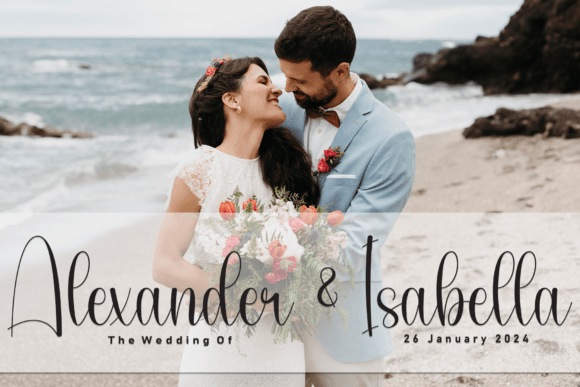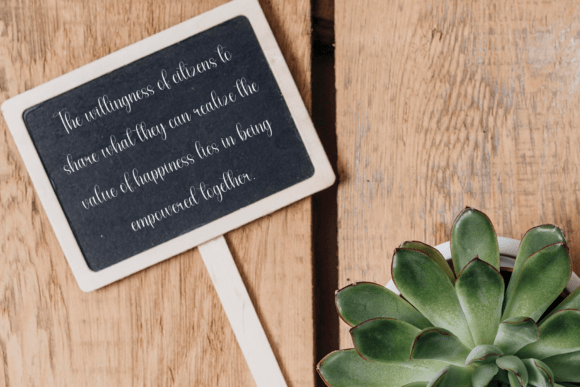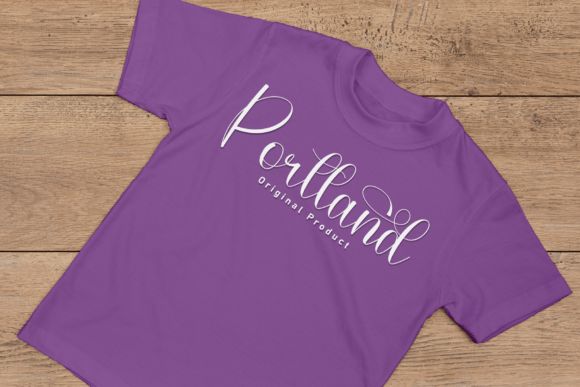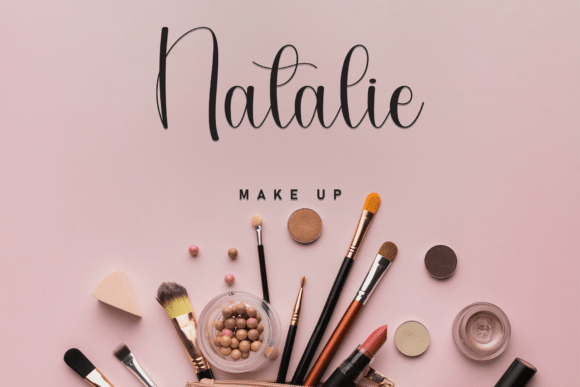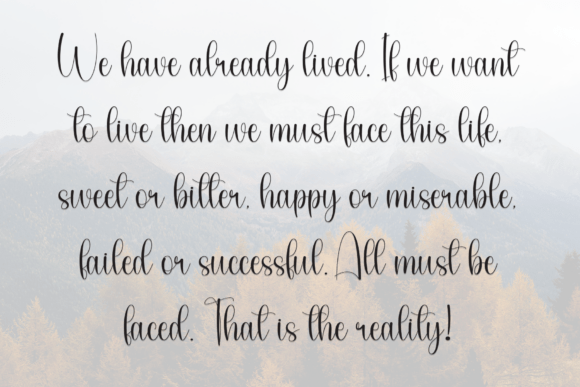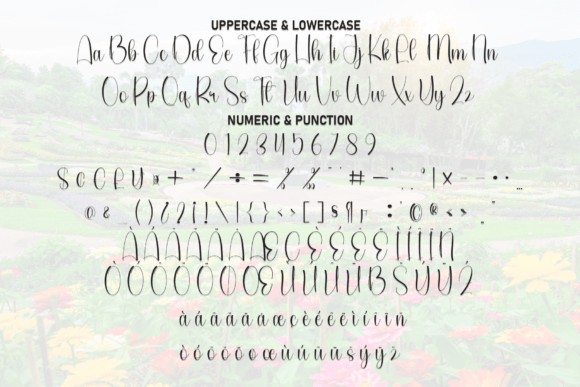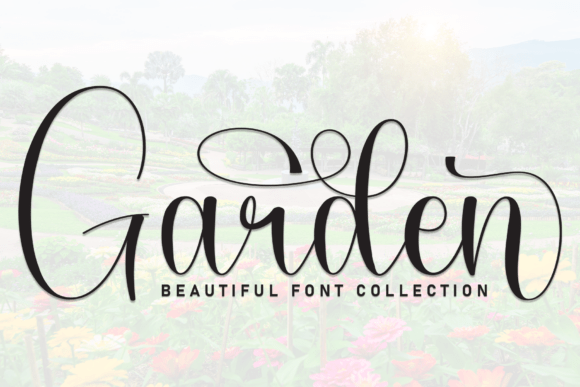
Garden Font: A Flourishing Script Font for Elegant Designs
Are you looking for a font that can add a touch of elegance and sophistication to your design projects? Look no further than the Garden Font, a beautiful script font that evokes the beauty of handwritten elegance and blooming nature. With its smooth curves, delicate swashes, and natural flow, this font is perfect for a variety of design applications, from wedding invitations to floral-themed branding and packaging.
The Beauty of Garden Font
Garden Font is a graceful and flourishing script font that is designed to bring charm and sophistication to any design project. Its smooth curves and delicate swashes give it a natural and elegant feel, reminiscent of handwritten calligraphy. The font’s natural flow and rhythm make it perfect for creating beautiful and flowing text, whether you’re designing a wedding invitation or a packaging label.
Perfect for Wedding Invitations and Floral-Themed Branding
Wedding invitations and floral-themed branding are two of the most popular uses for Garden Font. The font’s elegant and sophisticated feel makes it perfect for creating beautiful and memorable wedding invitations that will set the tone for the big day. Its delicate swashes and flourishes also make it ideal for floral-themed branding, adding a touch of whimsy and charm to any design.
Adding Charm and Sophistication to Packaging and Quotes
Garden Font is not just limited to wedding invitations and branding. Its natural flow and elegance also make it perfect for packaging and quotes. Whether you’re designing a label for a product or creating a quote for social media, this font is sure to add a touch of charm and sophistication to your design. Its smooth curves and delicate swashes make it easy to read and understand, while its elegant feel adds a touch of luxury and refinement.
Key Features of Garden Font
- Smooth Curves: Garden Font features smooth curves that give it a natural and elegant feel.
- Delicate Swashes: The font’s delicate swashes add a touch of whimsy and charm to any design.
- Natural Flow: Garden Font has a natural flow and rhythm that makes it perfect for creating beautiful and flowing text.
- Elegant Feel: The font’s elegant feel makes it perfect for creating sophisticated and refined designs.
Tips for Using Garden Font
Here are a few tips for using Garden Font in your design projects:
- Use it for Headings: Garden Font is perfect for headings and titles, where its elegant feel and smooth curves can really shine.
- Pair it with a Sans-Serif Font: Pairing Garden Font with a sans-serif font can create a beautiful contrast and add visual interest to your design.
- Experiment with Swashes: Don’t be afraid to experiment with the font’s delicate swashes and flourishes to add a touch of whimsy and charm to your design.
In conclusion, Garden Font is a beautiful and elegant script font that is perfect for a variety of design applications. Its smooth curves, delicate swashes, and natural flow make it ideal for wedding invitations, floral-themed branding, packaging, and quotes. With its elegant feel and sophisticated charm, this font is sure to add a touch of refinement and luxury to any design project. So why not give Garden Font a try and see how it can elevate your designs?